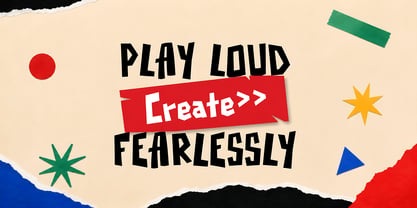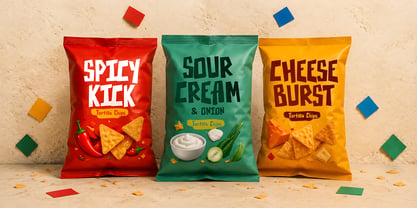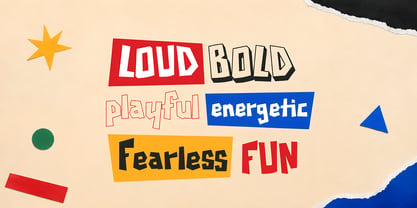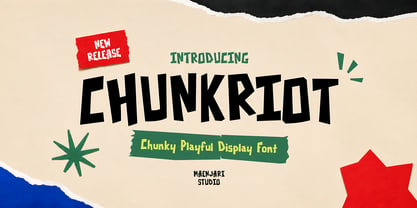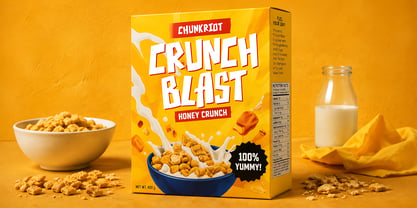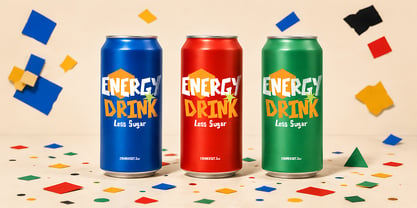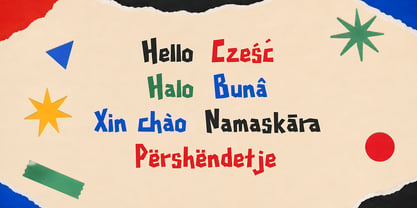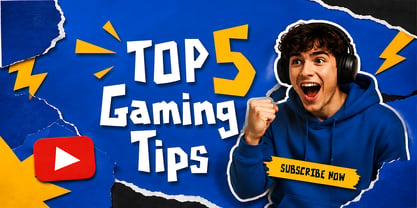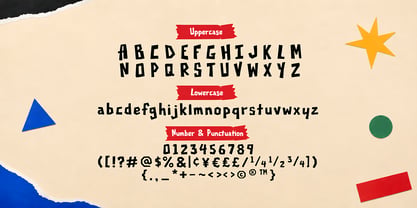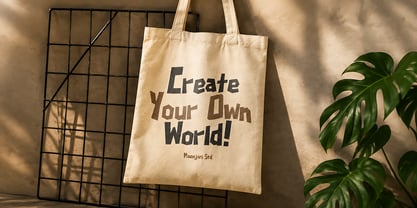
Chunkriot
Chunkriot is a chunky, geometric display sans-serif inspired by the tactile, angular forms of paper cutouts and retro comic-strip title cards. Characterized by asymmetric counters, straight-edge cuts, and a strong horizontal presence, Chunkriot is built to command editorial and commercial layouts.
The family comprises three distinct styles—Regular, Outline, and Hollow—which can be used independently or layered to achieve a multi-dimensional effect. This structural versatility makes Chunkriot an excellent candidate for packaging design, fast-moving consumer goods (FMCG) branding, promotional posters, and video game UI.
Chunkriot is technically refined with comprehensive European language support, standard mathematical symbols, and crisp numeral sets. Integrate Chunkriot into your design toolkit for a bold, playful display voice that retains structural integrity across print and digital media.